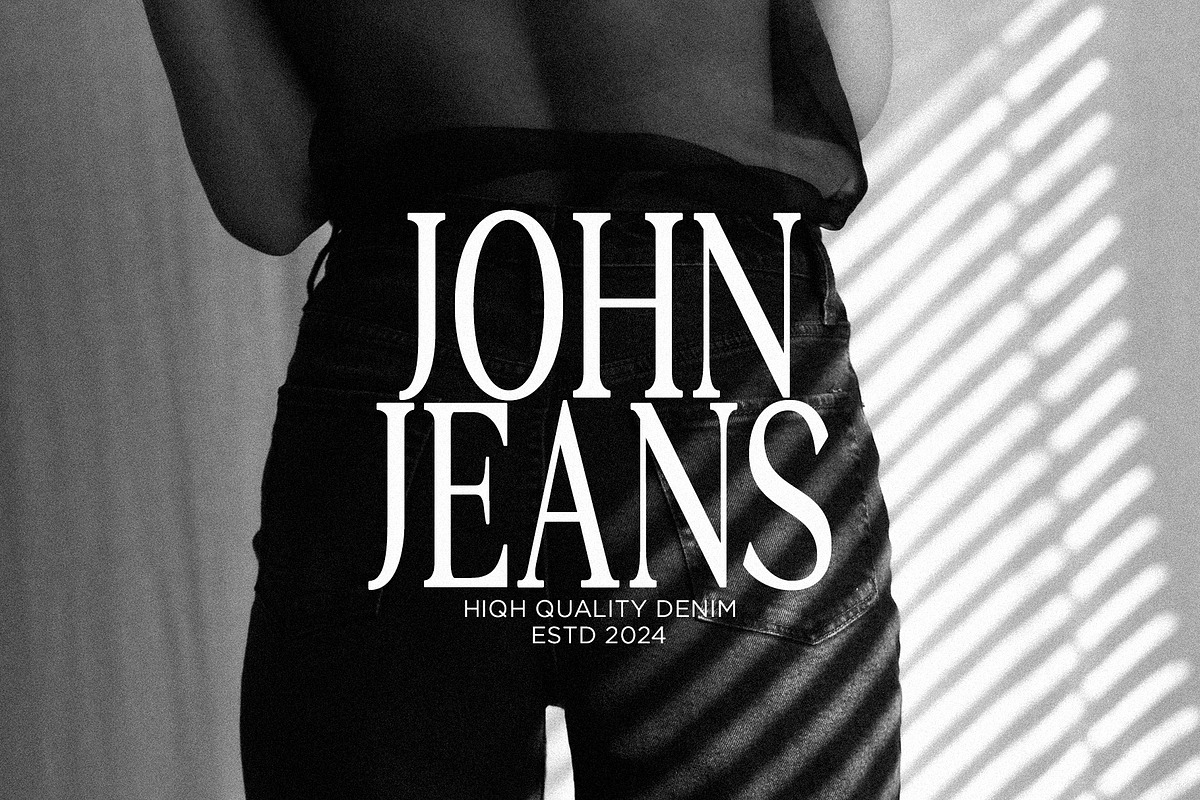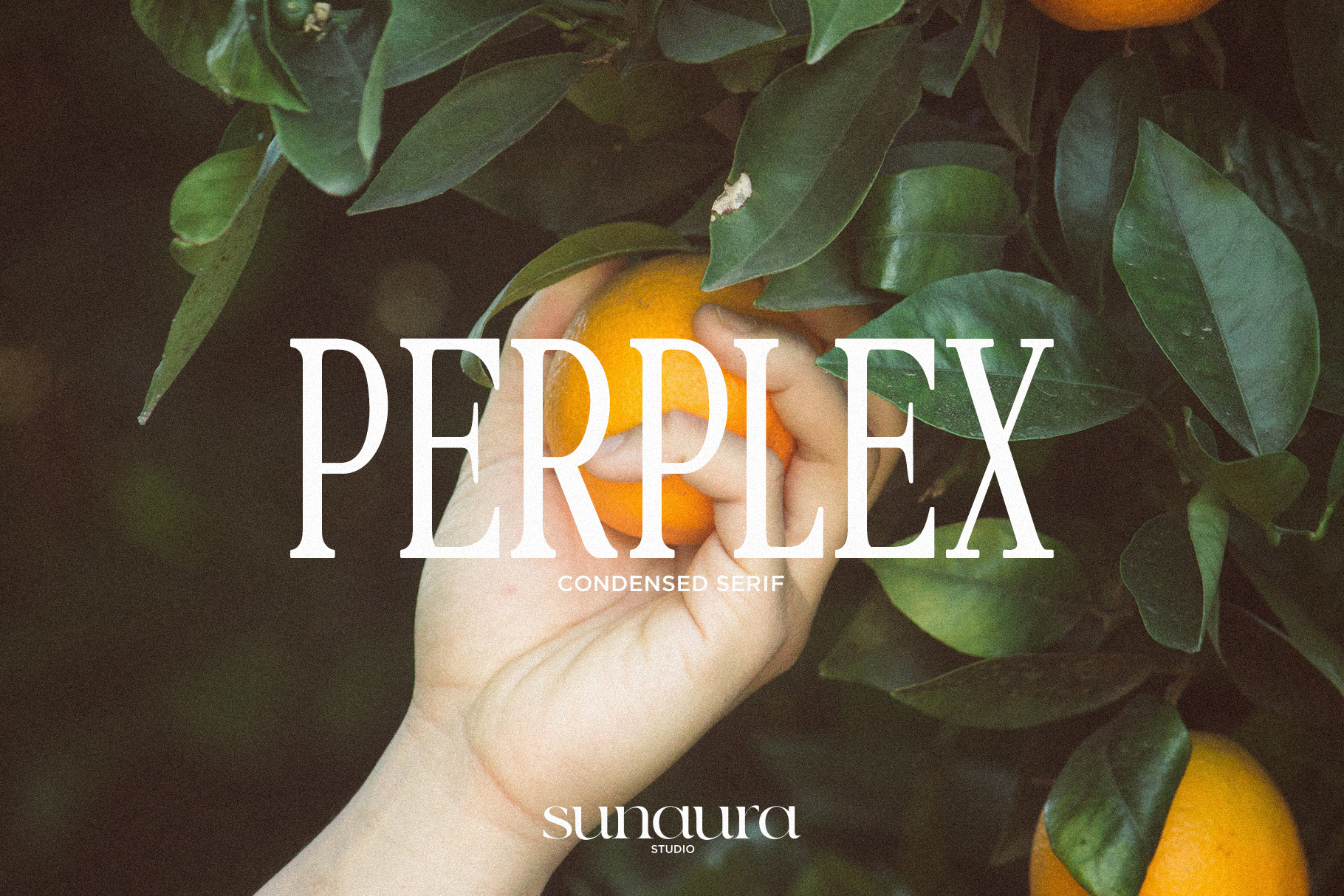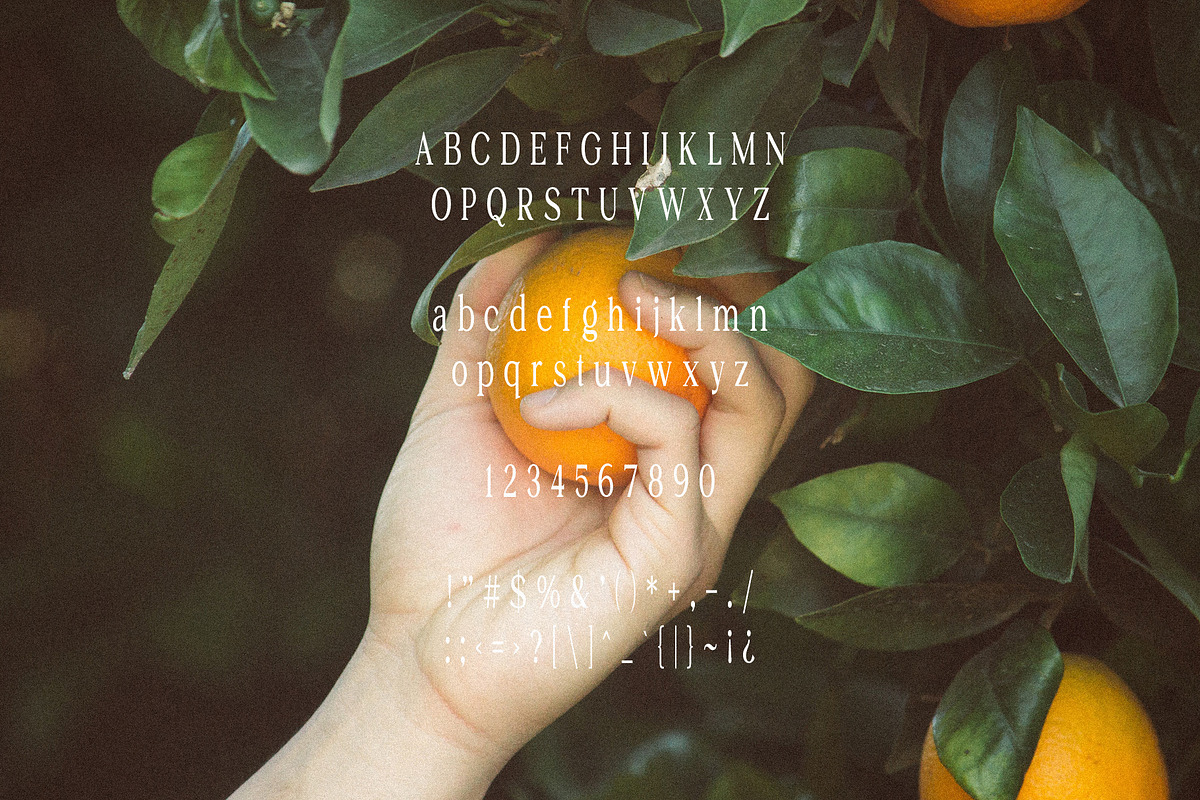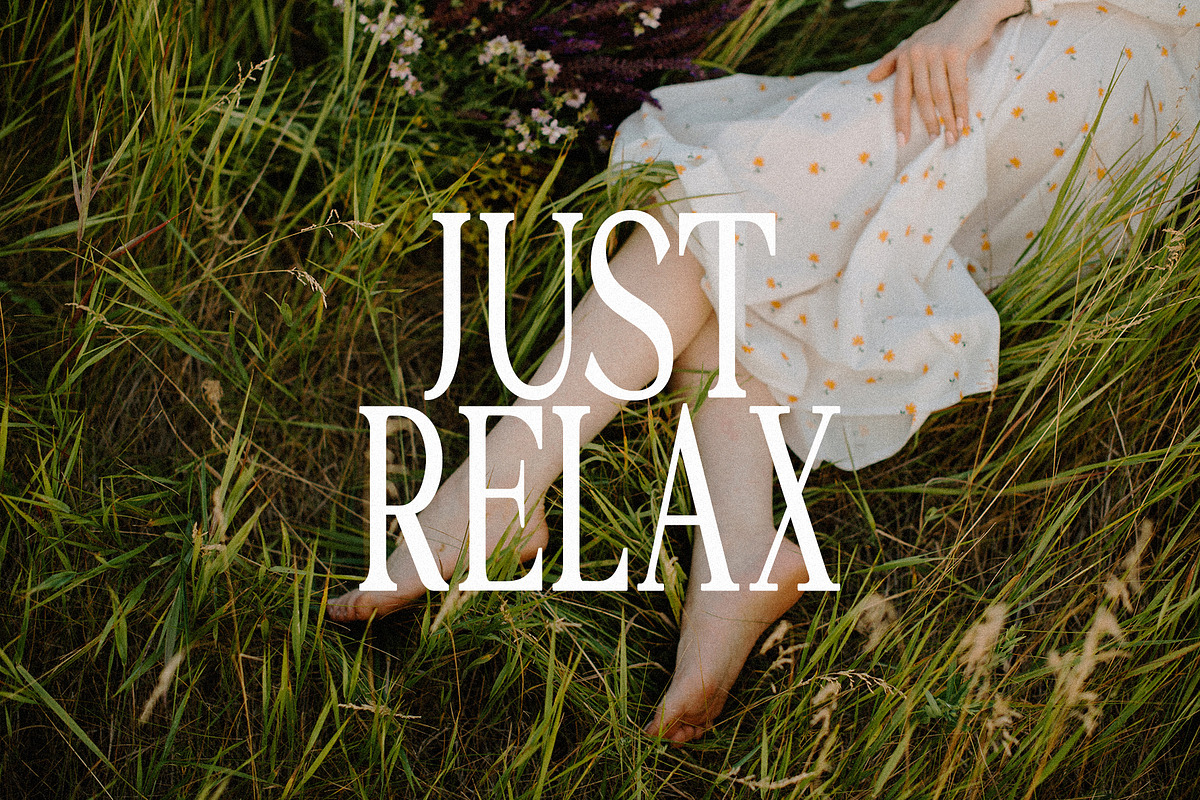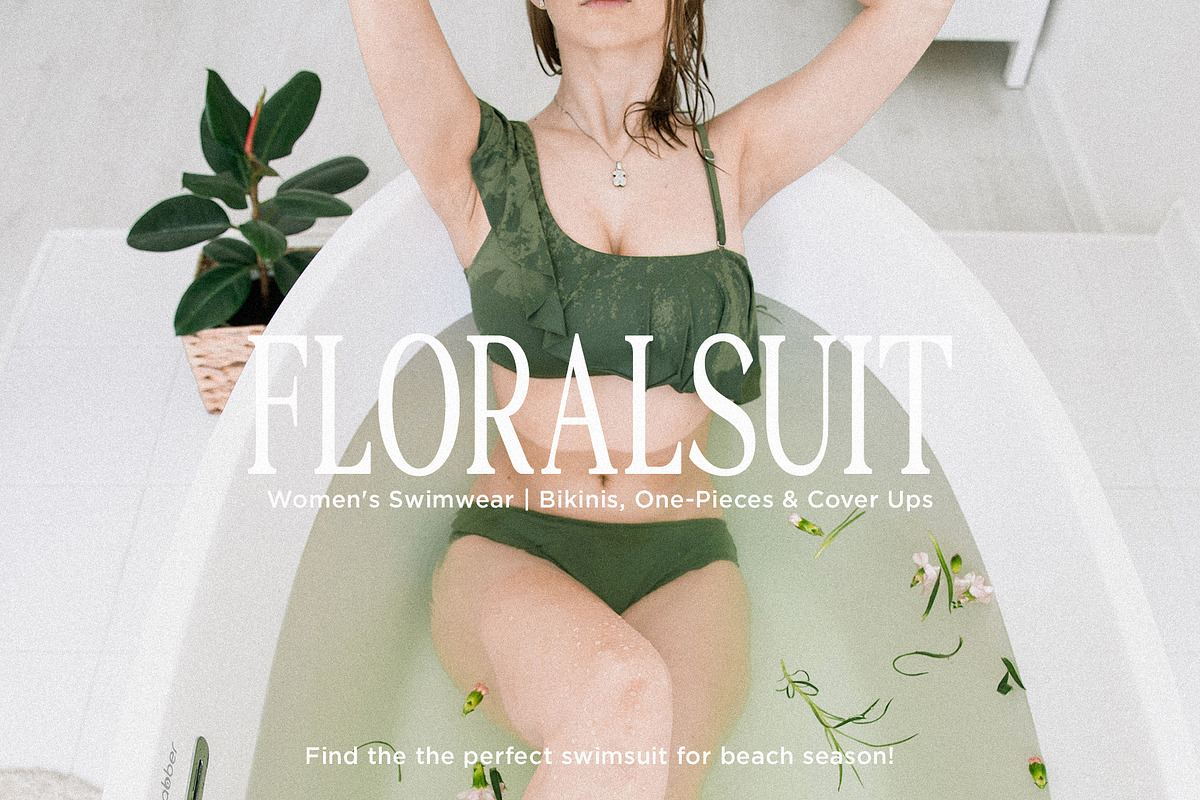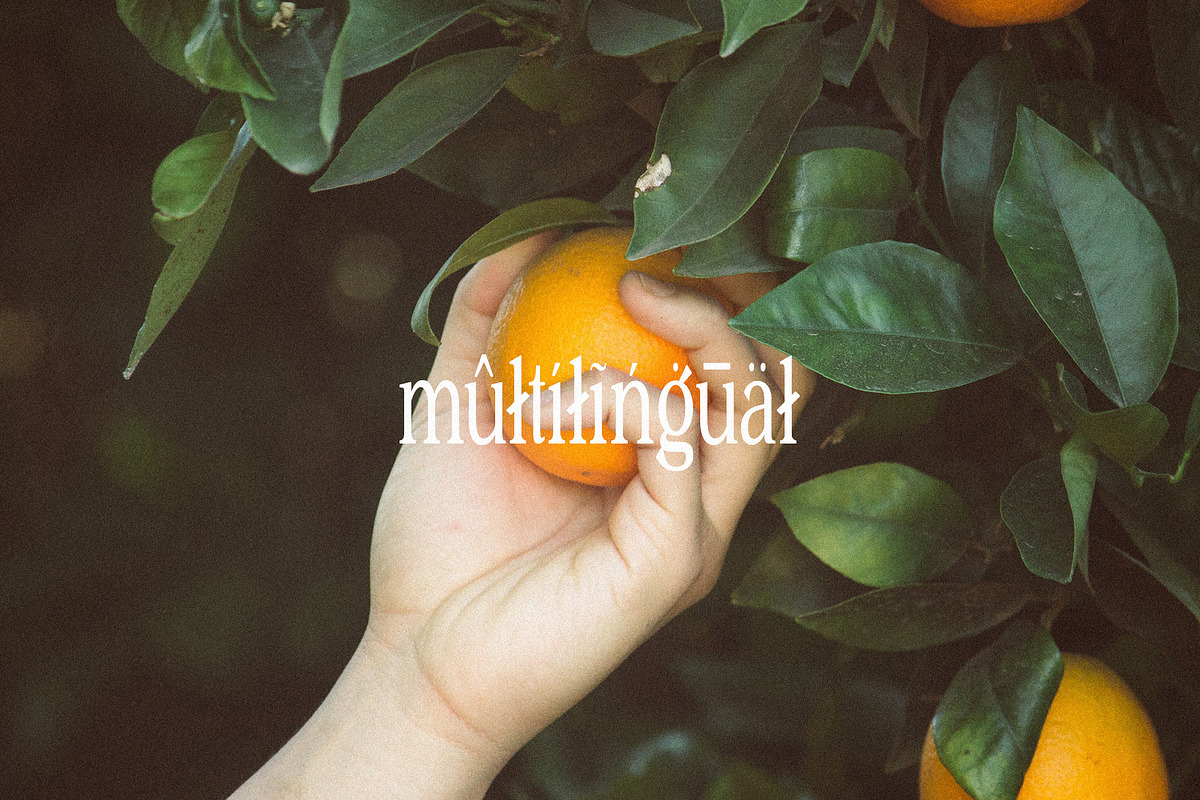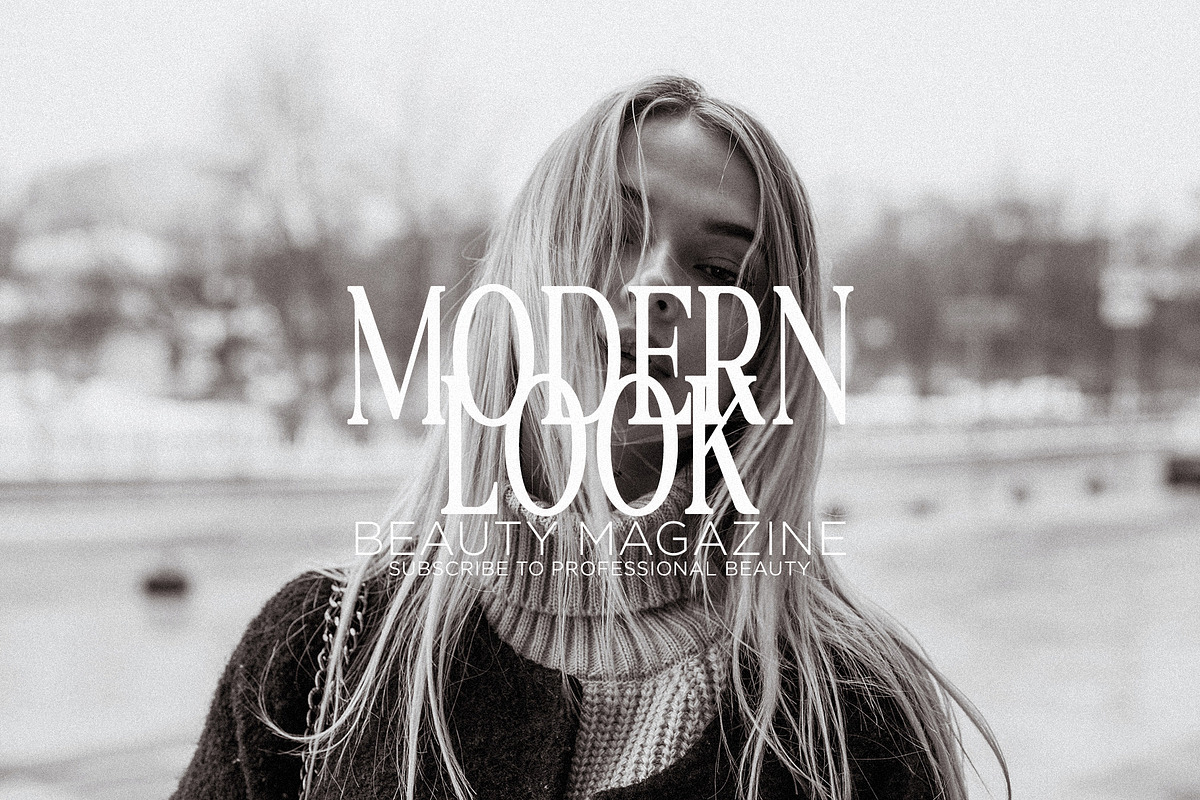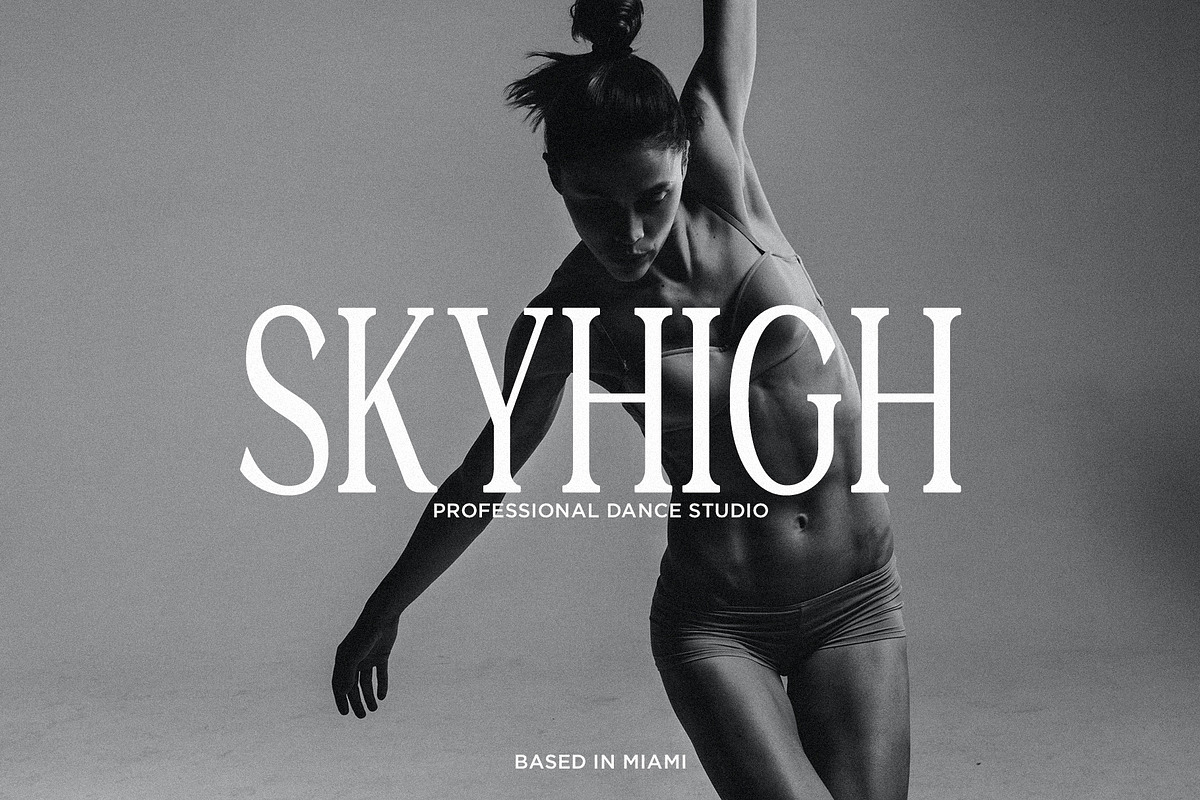
PERPLEX - Condensed Serif Typeface
PERPLEX is a stylish condensed serif typeface that exudes sophistication and modernity. Its sleek design and sharp serifs make it perfect for creating eye-catching headlines and titles. With its unique blend of elegance and readability, PERPLEX is sure to elevate your design projects to the next level. PERPLEX features multilingual support, over 250+ glyphs, uppercase & lowercase letters, numbers & symbols.